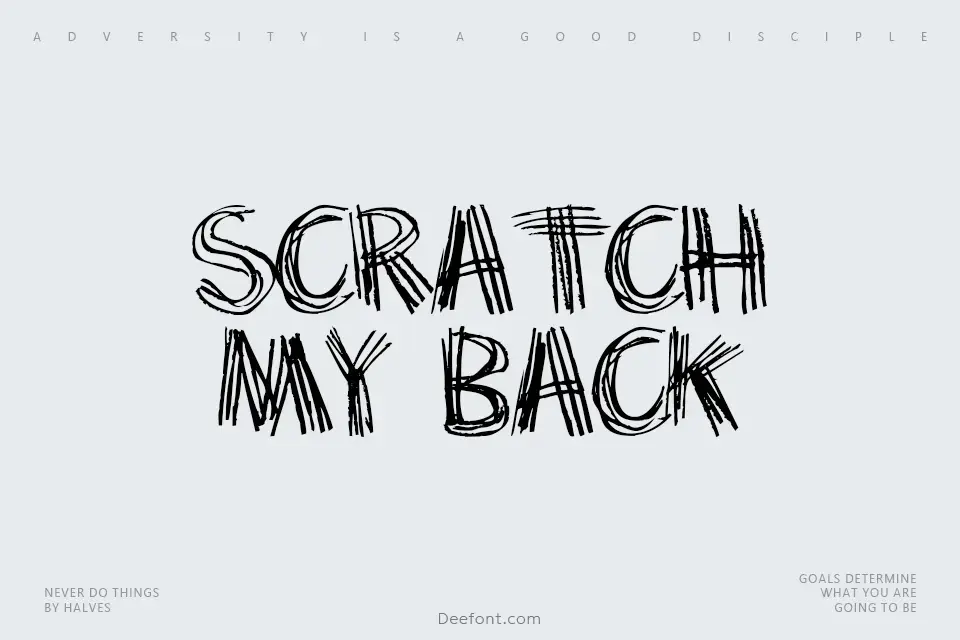
Scratch my back Font
Scratch my back is a bold, scratchy handwritten display font with chunky strokes, jagged edges and a raw DIY energy. Its distressed letters feel like they were carved into paper, making it perfect for horror movie titles, Halloween posters, rock band logos, extreme sports graphics and any design that needs a wild, grunge attitude.